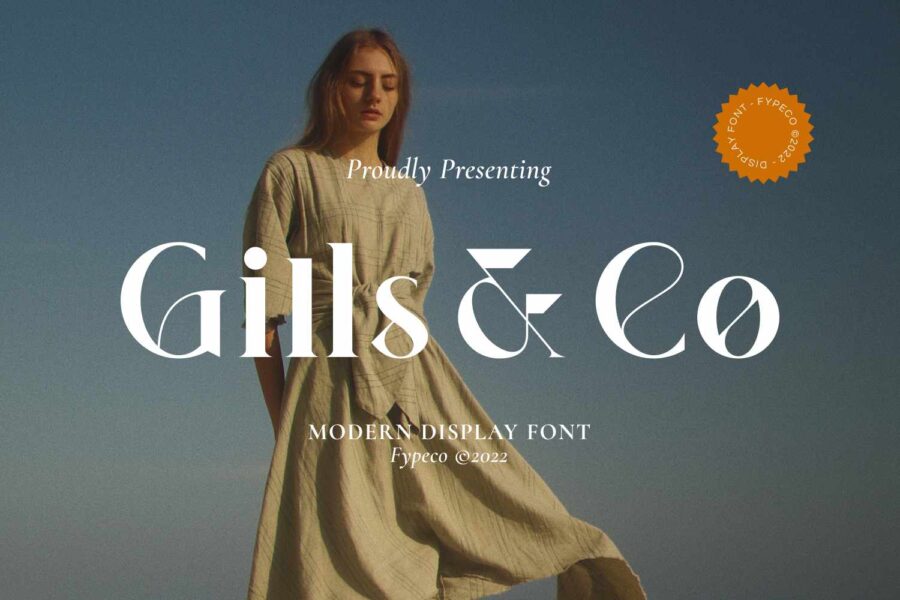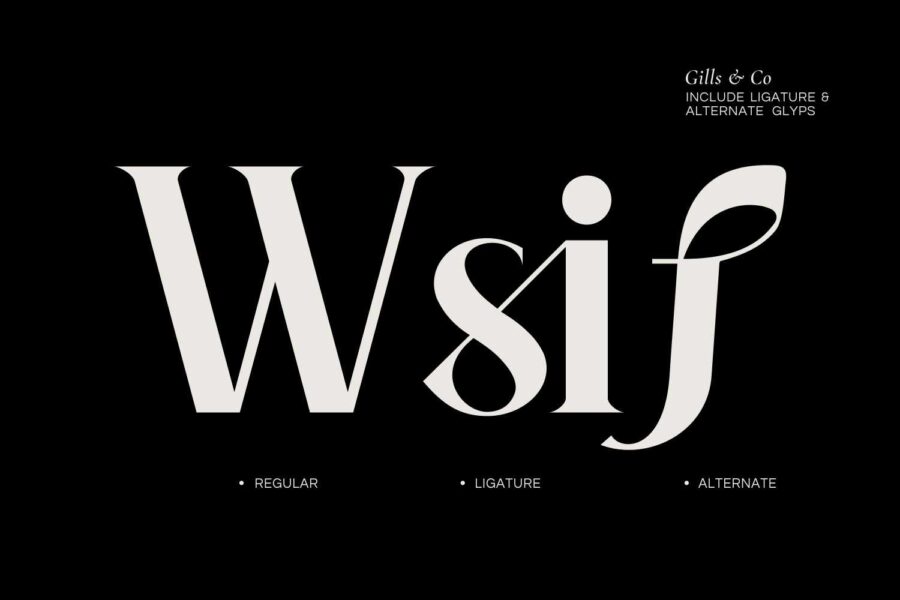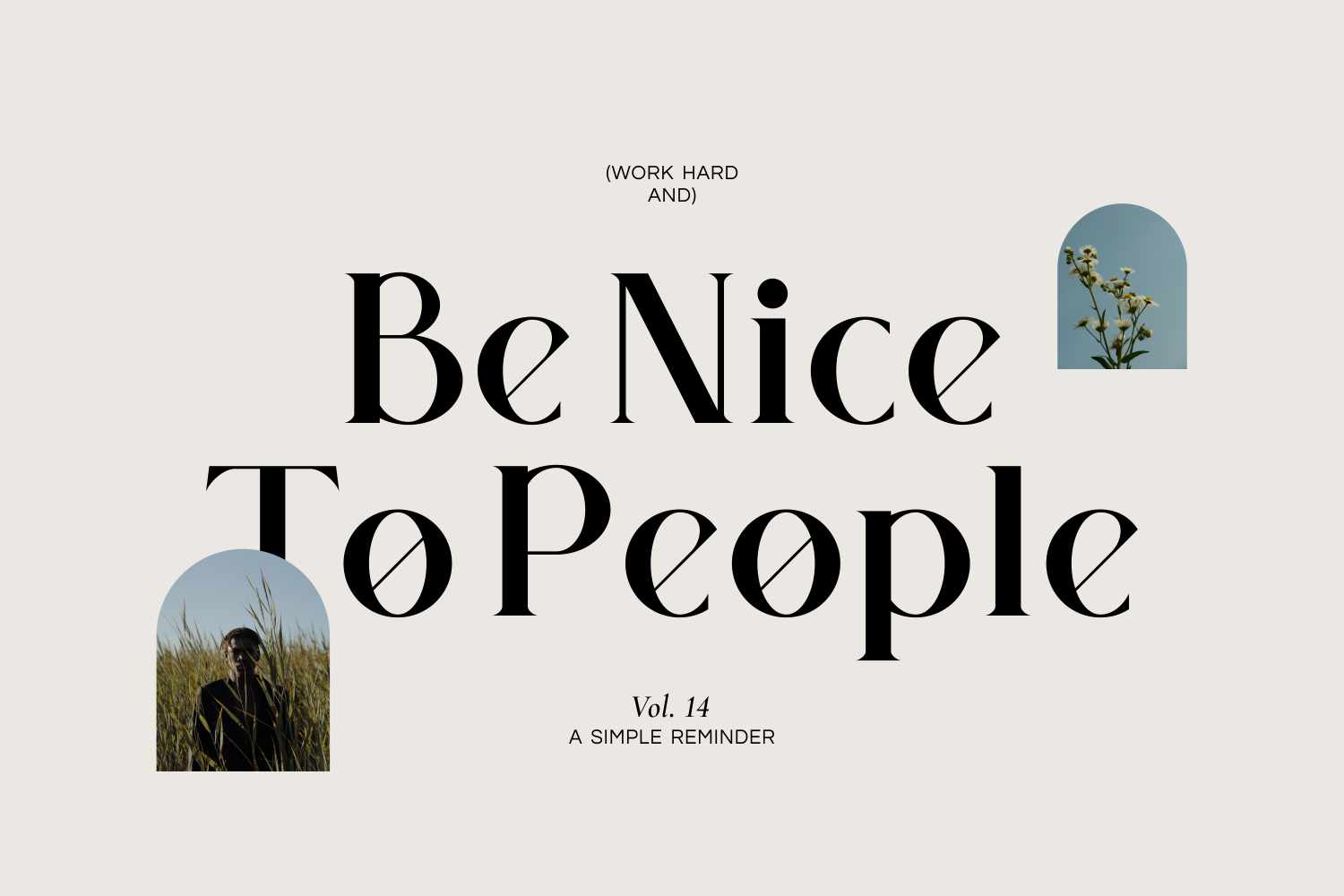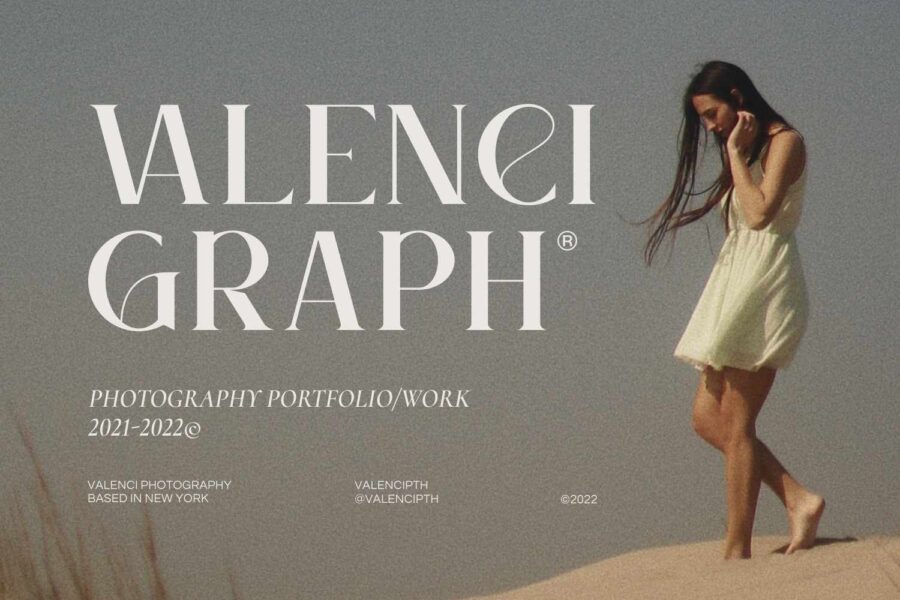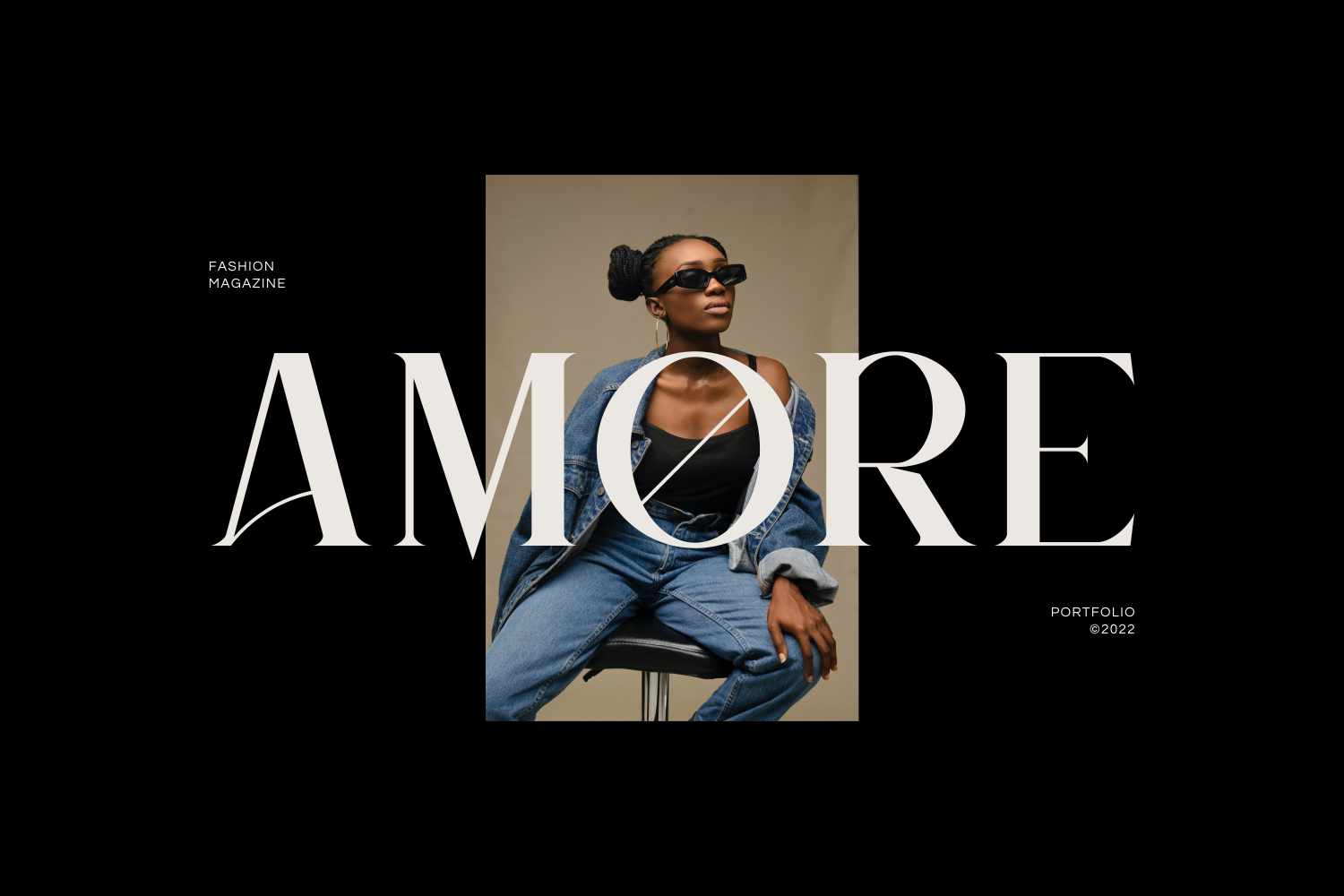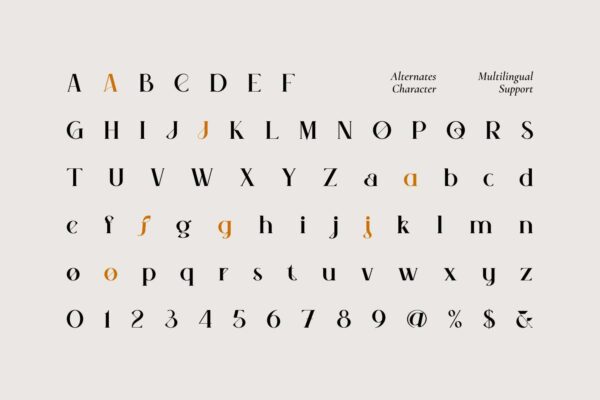
Gills & Co is a modern serif display font that blends elegance with contemporary flair. Featuring sharp contrasts, stylish curves, and beautifully designed alternates, it adds a sophisticated yet creative touch to any project. With ligatures and unique glyph variations, this font is perfect for crafting high-end branding, editorial layouts, logos, and fashion-inspired visuals.
Designed with versatility in mind, Gills & Co provides multilingual support and alternate characters, making it suitable for global design needs. Whether used for magazines, photography portfolios, or luxury product packaging, this font elevates typography into a statement of class and style, ensuring your design stands out with timeless modernity.
Gills & Co